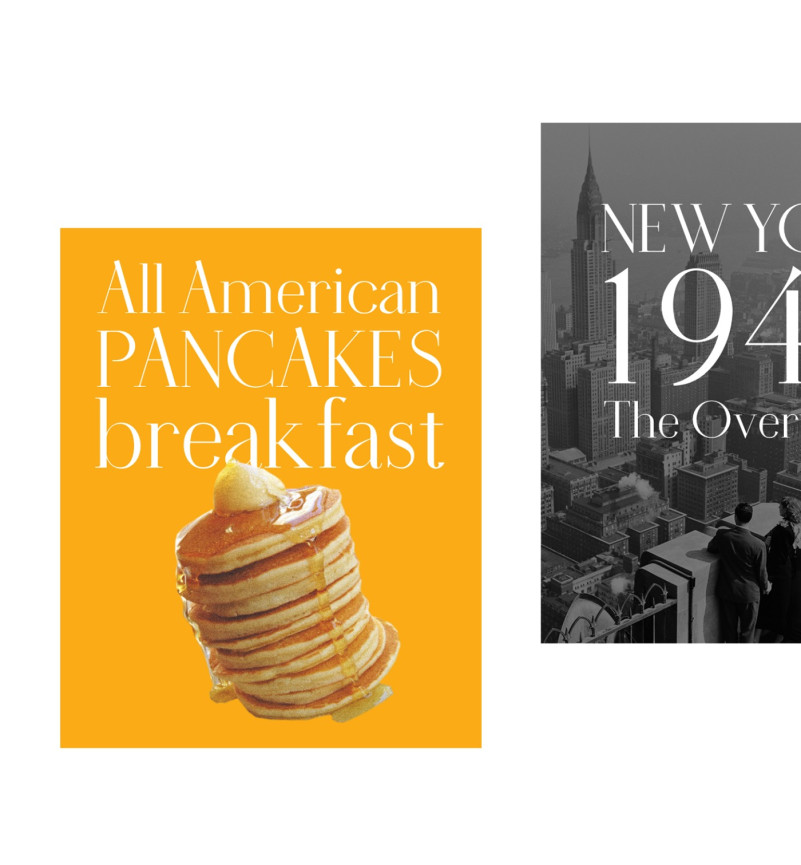
July01 Font
July01 Serif Font is the newest typeface designed by Danilo De Marco. It’s an elegant, classical-inspired sans serif font. The strong constrat between vertical and horizontal rods makes it fit into the Bodonian family. Although many of its letters have a more condensed style, others are a bit wider, all for greater contrast. Many of the letters that make up the font have a distinctive design that gives the font character, making it distinguishable from other similar fonts.
July01 is a purely graphic font, ideal for making artwork or for use in titles or subtitles within websites or printed magazines. The strong contrast of its constituent parts make it not very usable for small texts, nevertheless its use is not excluded for the composition of not excessively small texts if well balanced.